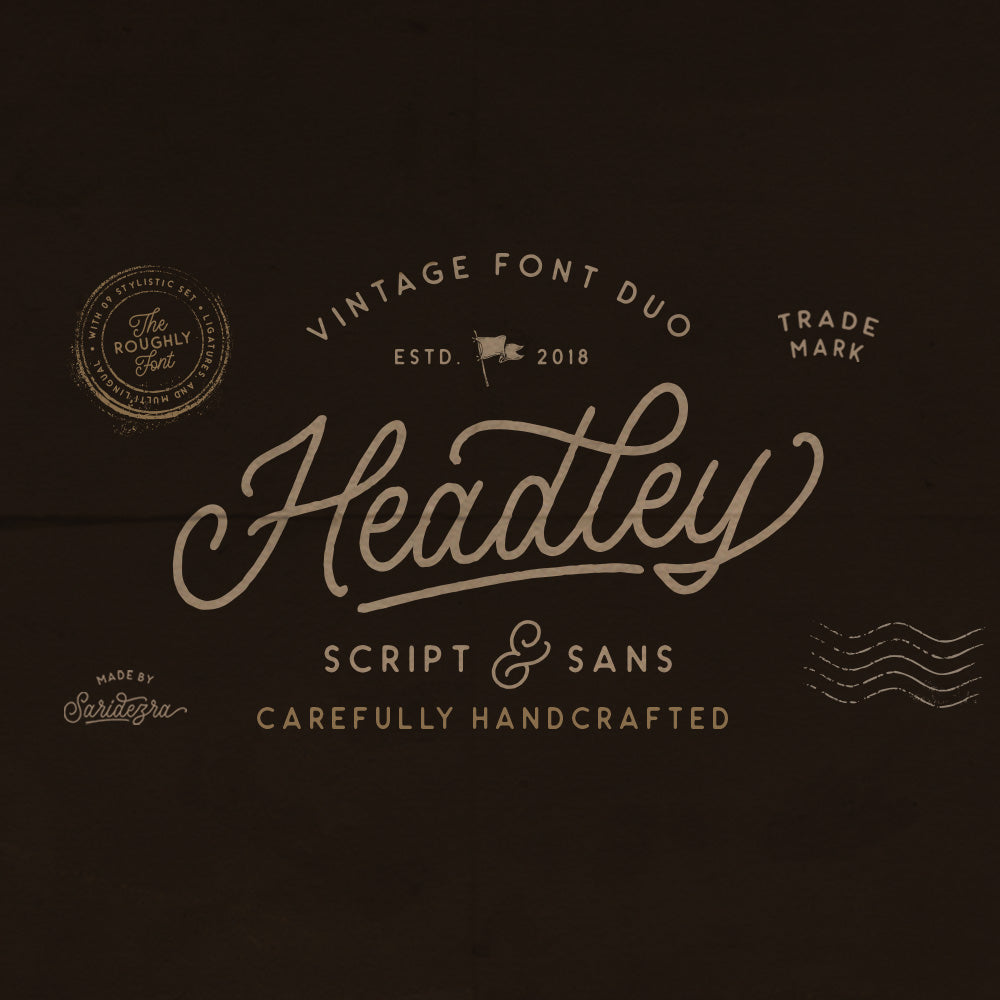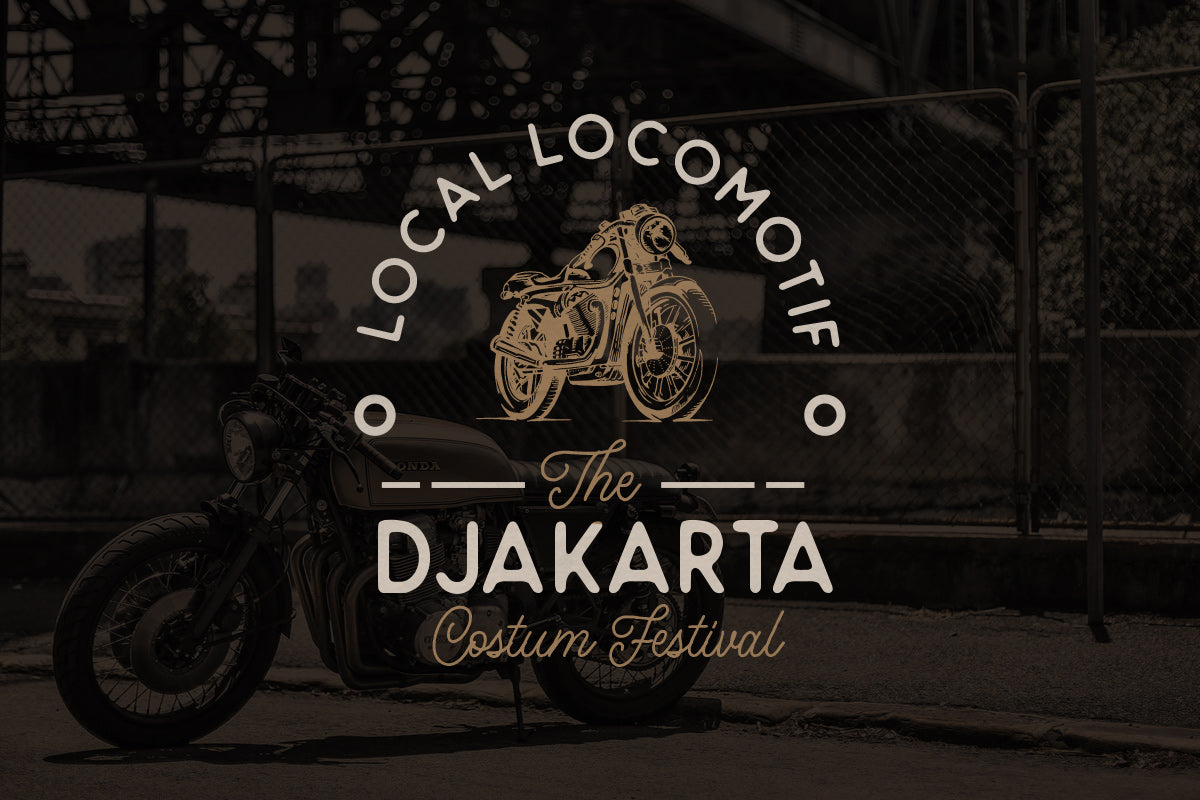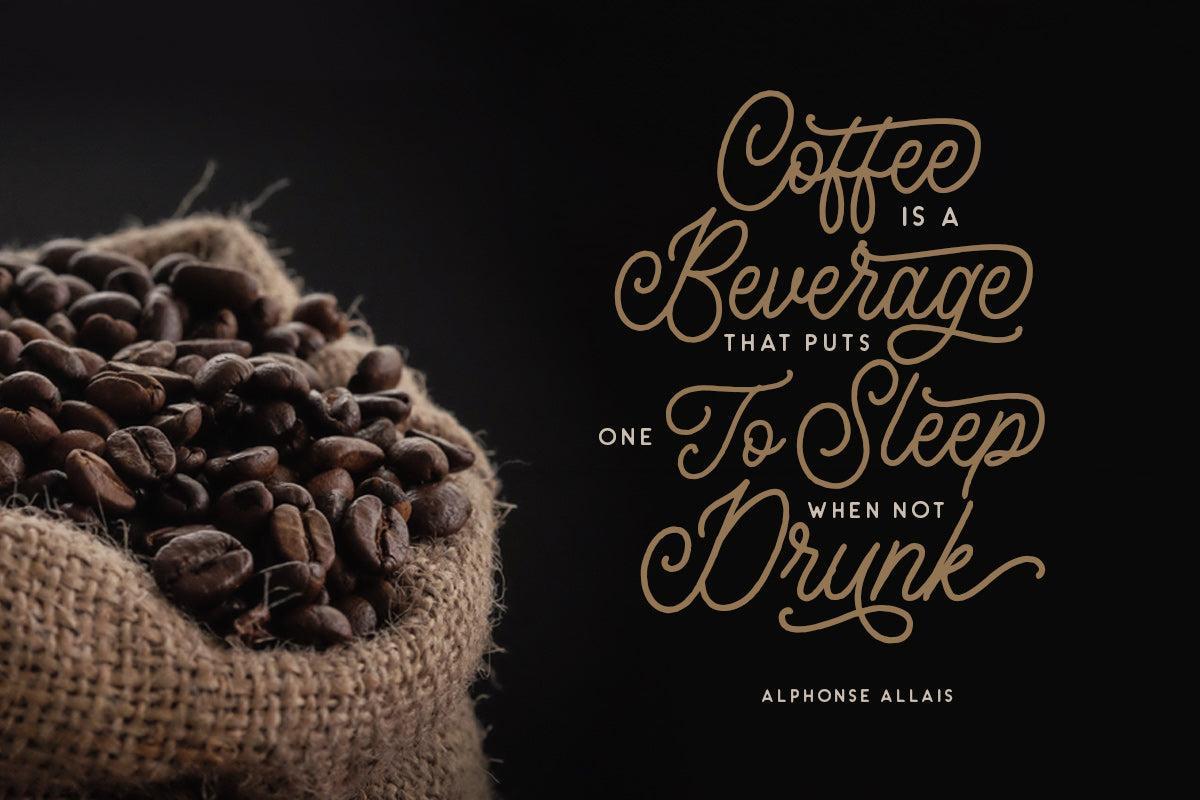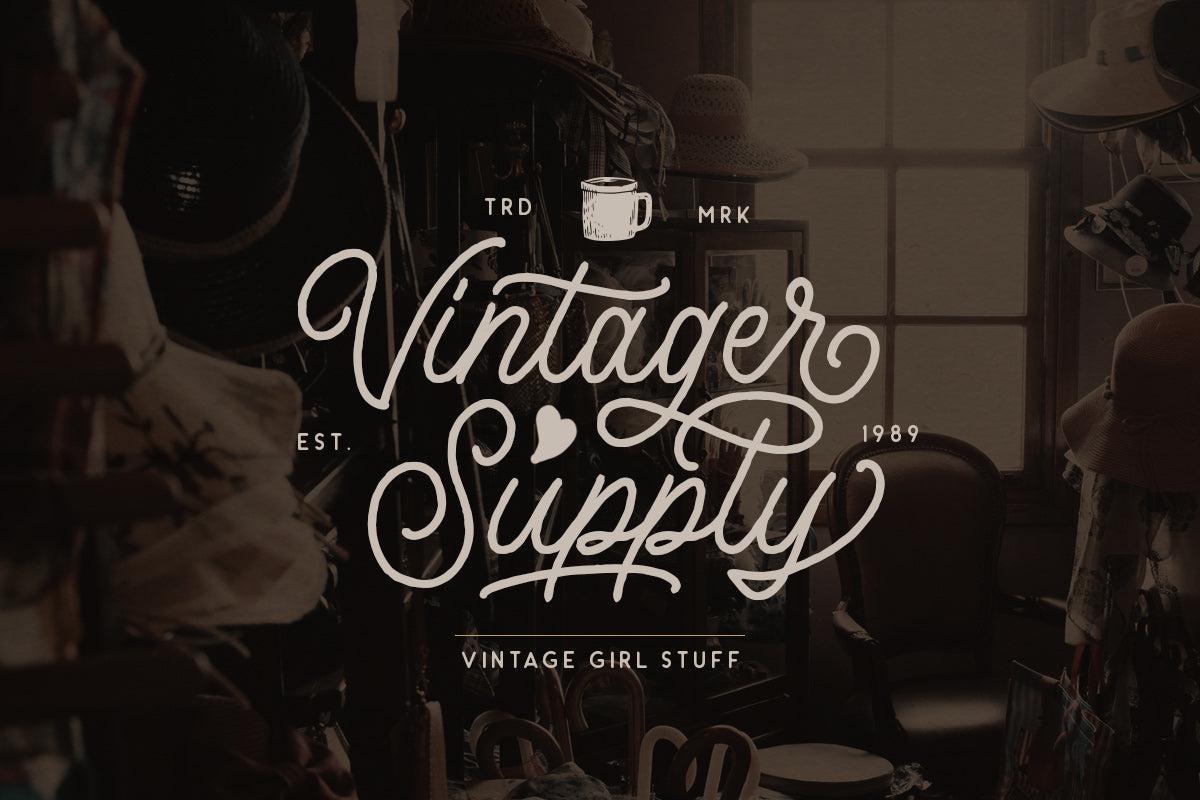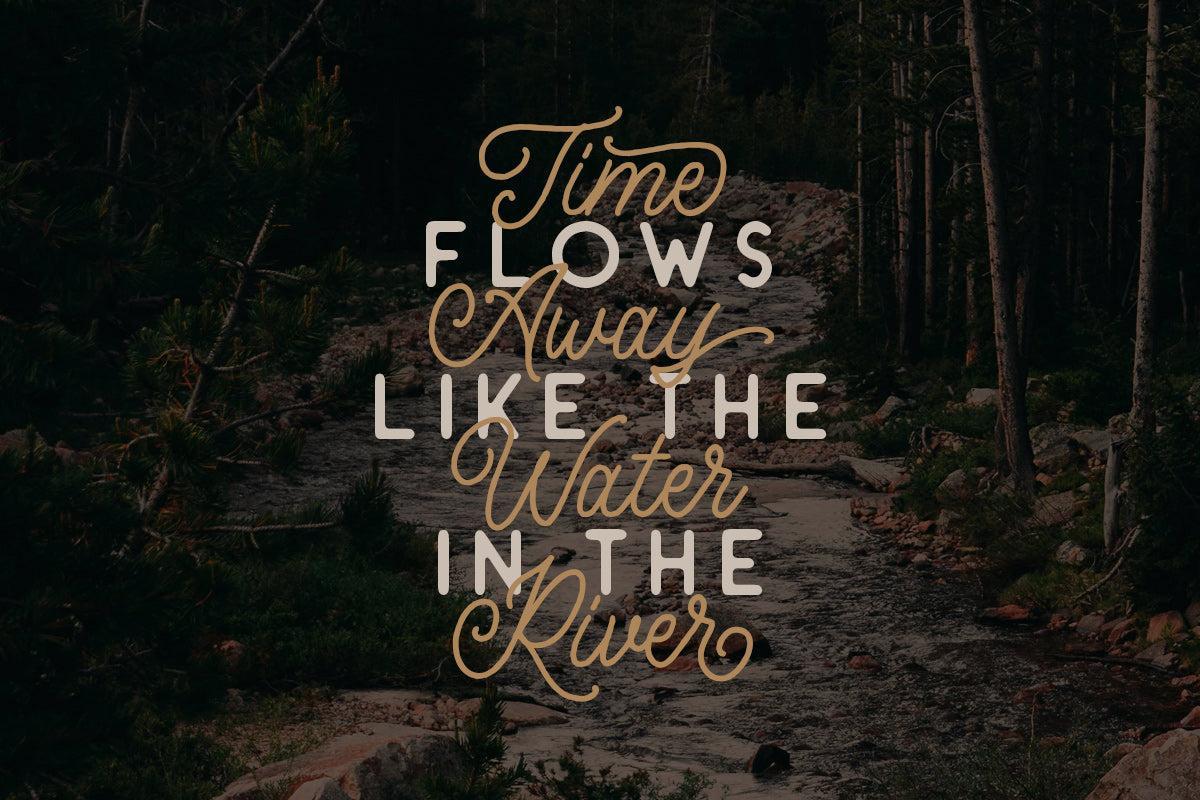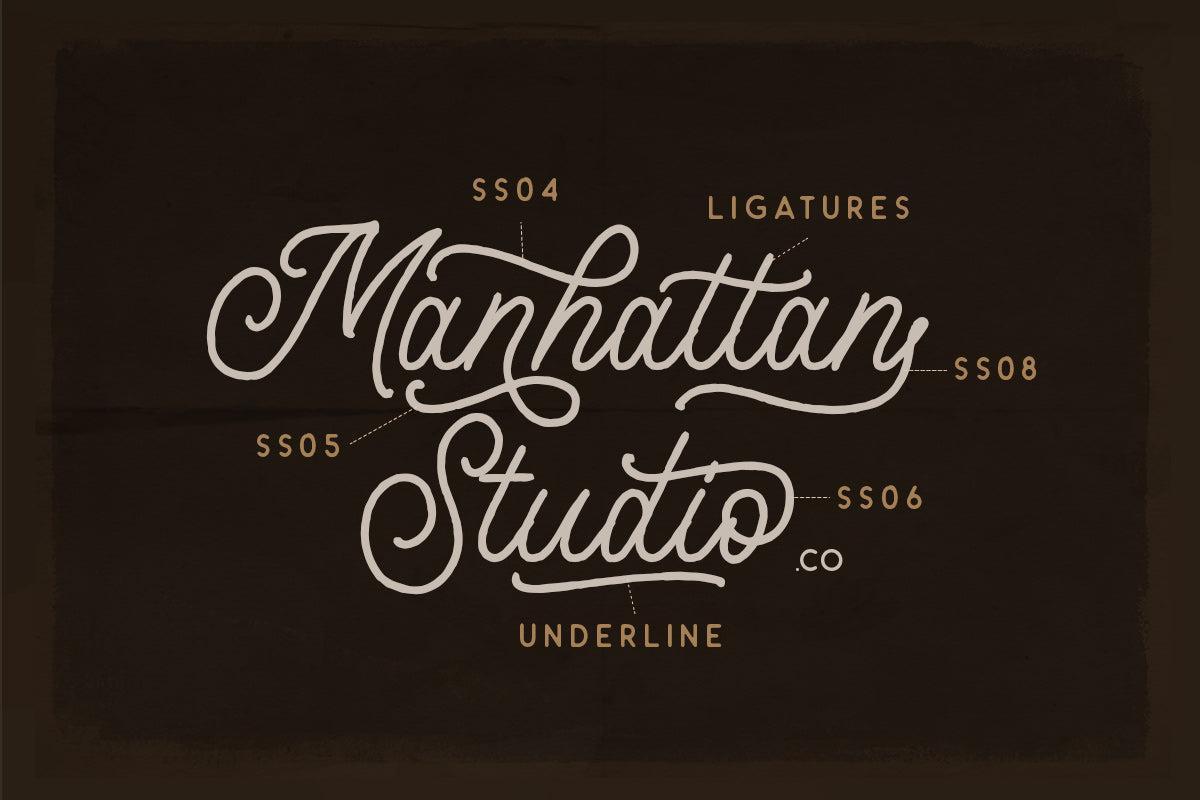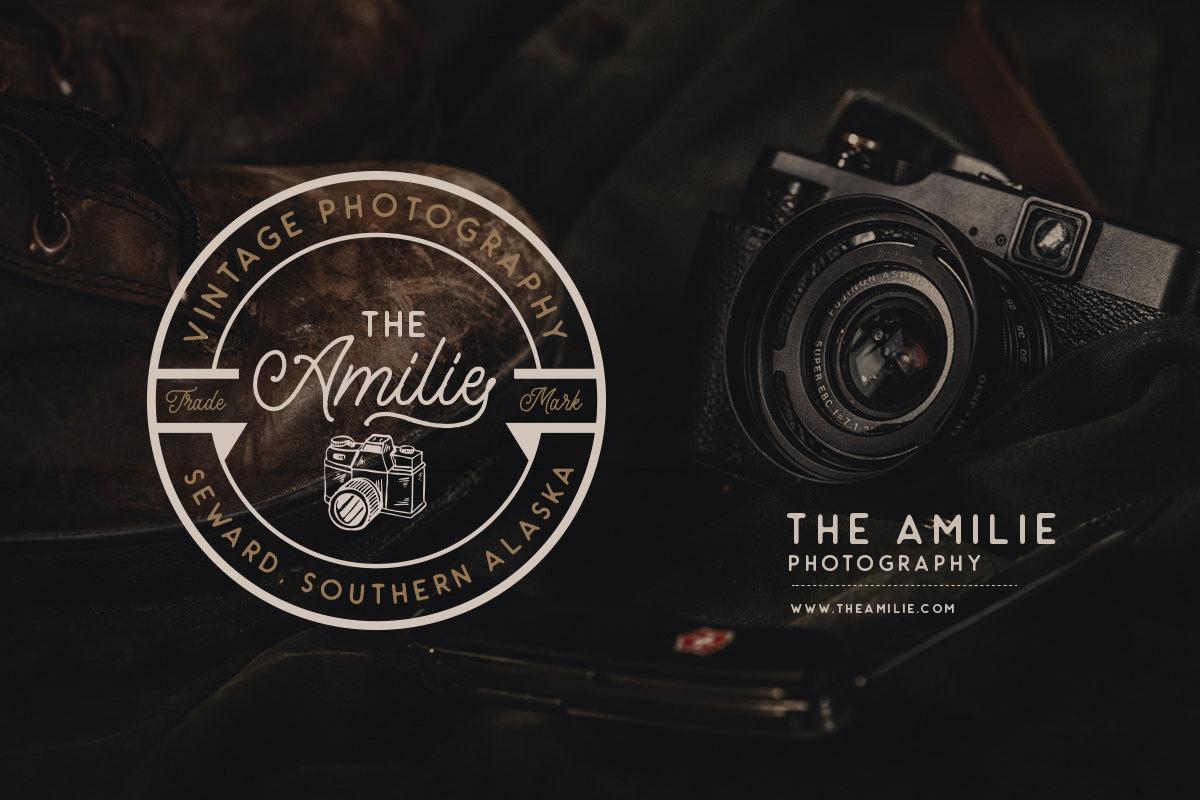
Headley - Vintage Font Duo (30% OFF)
The Headley - Vintage Font Duo includes two handmade fonts: a rough sans and a monoline script. This font duo supports multilingual characters, numbers, symbols, alternates, swashes, and underlines, and is PUA Encoded.